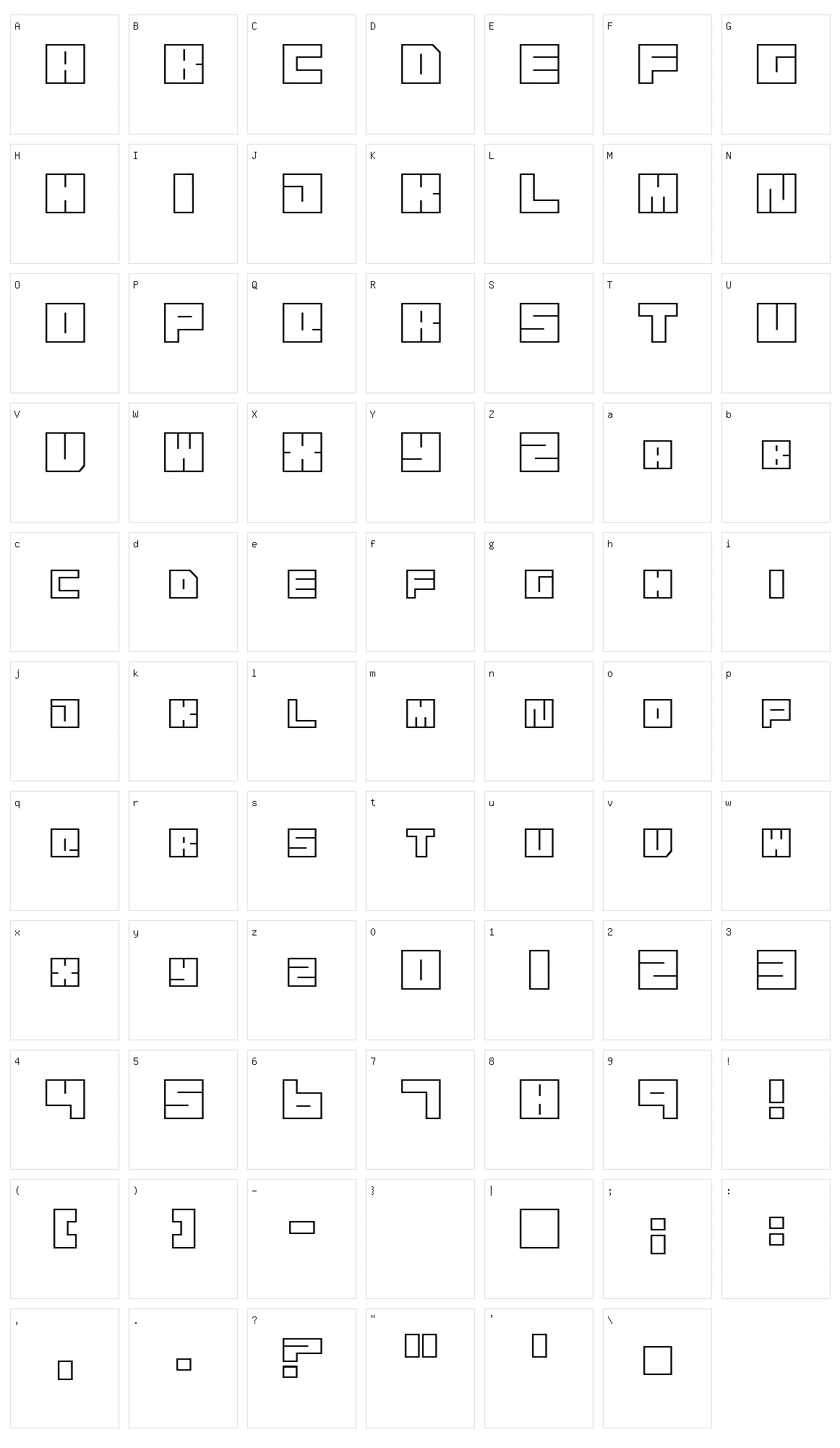
The free font Transuranium is carefully designed by Tepid Monkey, showcasing a thoughtful balance of creativity and usability and falls under the Square font style. When you download the ZIP file, it contains only 6.06 KB of font files, making it lightweight and quick to download. Please review the license details below to understand permitted usage and distribution rights. If license information is not available, we recommend using this font for personal projects only or contacting the author directly for commercial usage permissions.